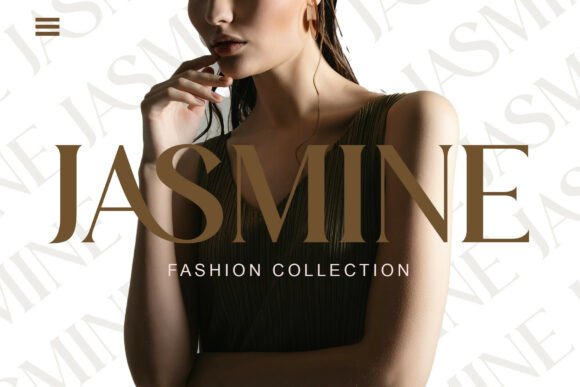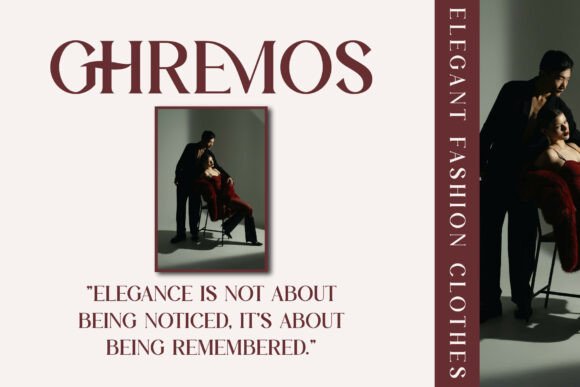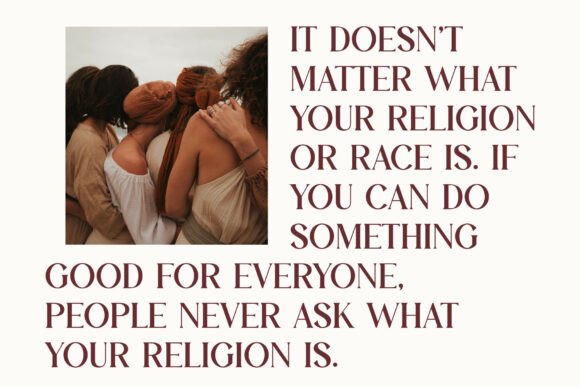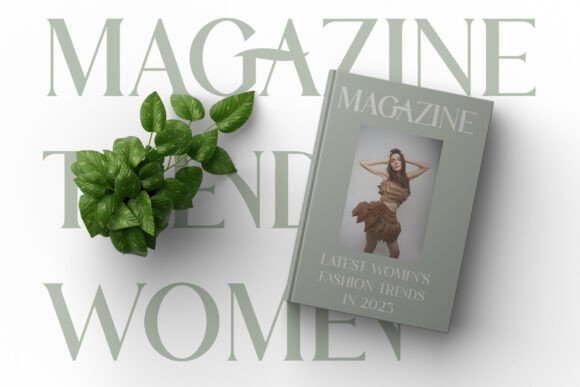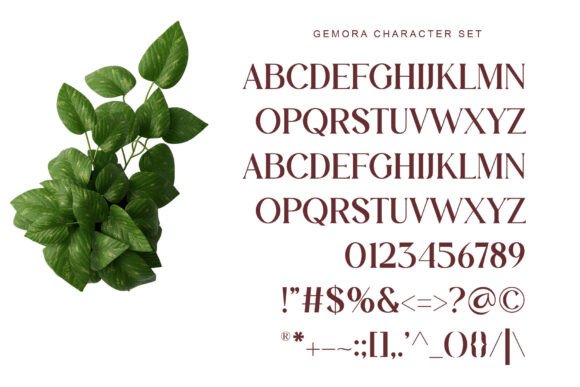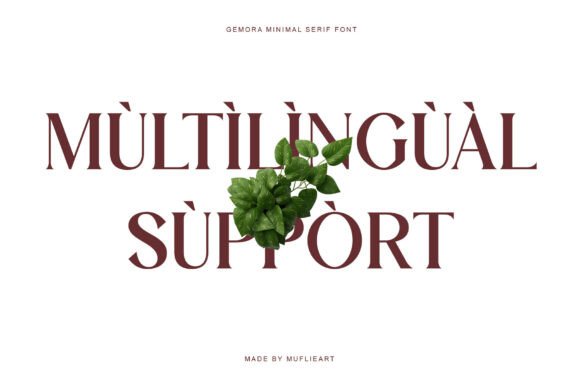
Introducing Gemora: The Elegant, Beautiful, and Modern Serif Font
In the world of typography, a font can make or break the aesthetic of a project. For designers and crafters, finding the perfect font that exudes elegance, sophistication, and modernity can be a daunting task. However, look no further than Gemora, the newest addition to the world of serif fonts. With its sleek, minimalist design, Gemora is poised to revolutionize the way you approach typography in your projects.
What is Gemora?
Gemora is a modern serif font that boasts a luxurious, classy, and clean style, perfect for a wide range of applications. Its elegant design makes it an ideal choice for projects that require a touch of sophistication, such as websites, modern logos, brand identities, social media quotes, wedding stationery, magazines, and more.
Key Features of Gemora
- Modern and Minimalist Design: Gemora’s sleek design ensures that your projects stand out from the crowd with a fresh and contemporary look.
- Luxurious and Classy Style: The font’s elegant features add a touch of sophistication to any project, making it perfect for high-end brands and luxury goods.
- Clean and Legible: Gemora’s clean lines and precise curves ensure that your text is easy to read, making it perfect for body text and headings.
- Versatile: Gemora is suitable for a wide range of applications, from digital projects like websites and social media graphics to print materials like wedding stationery and magazines.
Gemora’s versatility makes it an excellent choice for various projects, including:
- Logos and Brands: Create a lasting impression with a custom logo or brand identity that exudes elegance and sophistication.
- Wedding Invitations: Add a touch of luxury to your wedding stationery with Gemora’s beautiful and elegant design.
- Business Cards: Stand out from the competition with a business card that features Gemora’s modern and clean style.
- Greeting Cards: Create beautiful and heartfelt greeting cards for any occasion with Gemora’s elegant design.
- Posters and Magazines: Use Gemora to add a touch of sophistication to your posters, magazines, and other print materials.
- Social Media: Elevate your social media presence with Gemora’s modern and luxurious style.
- Agenda Prints and Websites: Use Gemora to add a touch of elegance to your agenda prints and website design.
Why Choose Gemora?
With so many fonts available, why choose Gemora? Here are just a few reasons:
- Unique and Modern Design: Gemora’s sleek design ensures that your projects stand out from the crowd.
- Elegant and Sophisticated: The font’s elegant features add a touch of luxury to any project.
- Highly Legible: Gemora’s clean lines and precise curves ensure that your text is easy to read.
- Versatile: Gemora is suitable for a wide range of applications, from digital projects to print materials.
In conclusion, Gemora is the perfect font for designers and crafters looking to add a touch of elegance, sophistication, and modernity to their projects. With its sleek design, luxurious style, and versatility, Gemora is poised to become a favorite among typography enthusiasts. Whether you’re working on a website, logo, wedding stationery, or social media graphics, Gemora is the perfect choice. So why wait? Download Gemora today and take your projects to the next level!